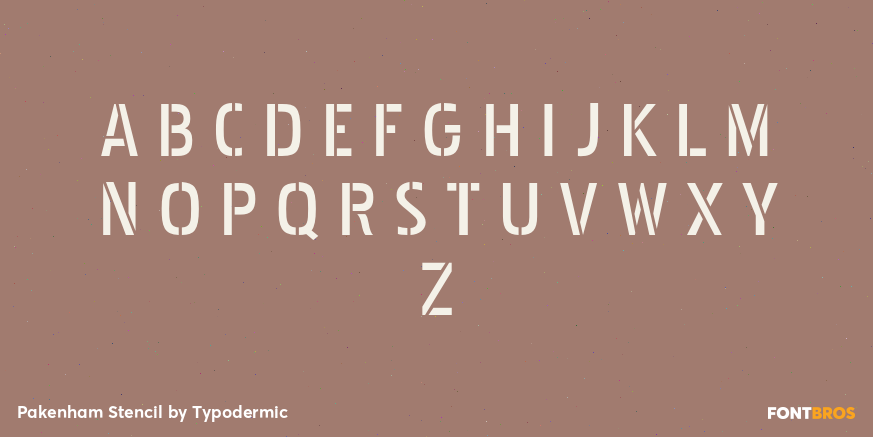
Pakenham Stencil
Pakenham Stencil interrupts the family’s narrow strokes with clean, economical bridges. The cuts are clearly visible without adding texture, preserving Pakenham’s tall proportions and distinctive curved-square shapes in a practical one-color construction.
Use Pakenham Stencil for cabin numbers, storage labels, boat-launch signs, equipment markings, event wayfinding, and utility-style headings. Its clean surface suits repeated information better than Spraypaint, while the narrow build helps longer labels fit restricted panels. Use Regular or Condensed for small instructions where the stencil gaps would become too fine.